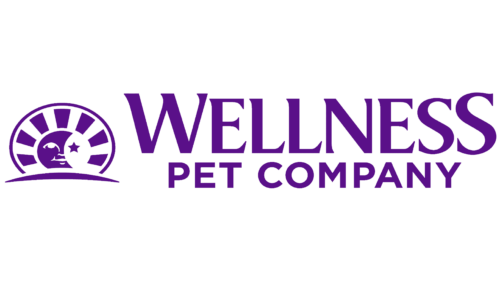
Wellness is a brand focusing on pet health and nutrition. Created by Jim Scott, Sr. in the USA, a bakery for dog treats. Wellness aims to provide high-quality, natural pet food, promoting overall well-being. Their products, crafted with carefully selected ingredients, cater to different dietary needs of pets, combining scientific research and nutritional expertise. It reflects a growing trend of pet owners prioritizing the health and happiness of their pets.
Wellness Pet Company, originating in the 1990s in the United States, evolved from a century-old legacy of Old Mother Hubbard, a dog biscuit manufacturer. Founded by Jim Scott, Sr., a man passionate about animal nutrition, Wellness sought to transform pet food industry standards. Scott’s vision was to offer pet food that prioritizes natural ingredients, health, and nutrition, aligning with a holistic approach to pet care.
The company quickly distinguished itself with its commitment to quality and wellness, developing a range of products to cater to various pet dietary needs. Embracing scientific research and nutritional expertise, Wellness has become synonymous with premium, health-centric pet food, earning trust and loyalty from pet owners globally. Its journey reflects a paradigm shift in how we view pet nutrition, emphasizing not just sustenance, but overall well-being.
Wellness Pet Company emerges as a beacon in the realm of animal nourishment, championing the cause of organic, nutrient-rich pet sustenance. Conceived from a desire to elevate the vitality of pets via outstanding nutritional selections, this entity presents an array of specially tailored nourishments. Emblematic of a fusion between scientific acumen and profound devotion to the thriving of pets, the brand carves a distinctive niche in pet care excellence.
Wellness logo
The logo is a stylized emblem with a harmonious blend of imagery and typography. A crescent moon cradles a star, implying a nurturing ethos, set against a backdrop suggesting a radiant sun or wheel, symbolizing vitality and a full cycle of care. The words “Wellness Pet Company” are written in a bold, sans-serif typeface, with “Wellness” prominently displayed in a larger font, conveying the brand’s primary focus on pet health and vitality. Purple, the color of royalty, adds a touch of sophistication and distinction to the overall design.